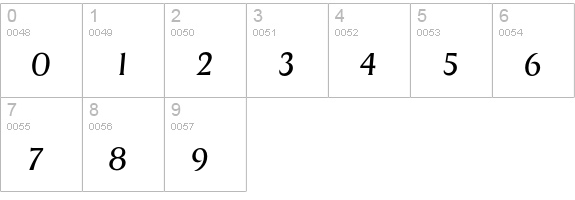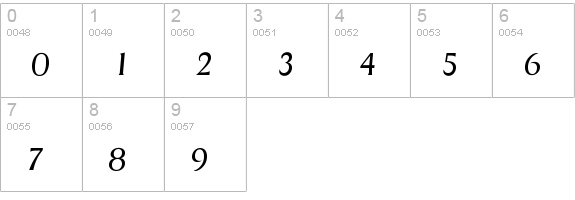
Dragon-LightIta Font Details
Introducing Dragon-LightIta, a stunning and elegant font that exudes a sense of power and mystique. With its intricate design and sleek curves, Dragon-LightIta is perfect for adding a touch of sophistication to any project. This unique font is sure to make a bold statement and captivate your audience. The best part? Dragon-LightIta is completely free to download at FontsMarket.com. Now you can elevate your designs without breaking the bank. Don't miss out on this opportunity to enhance your projects with this exceptional font. Download Dragon-LightIta today and unleash the power of creativity in your work.